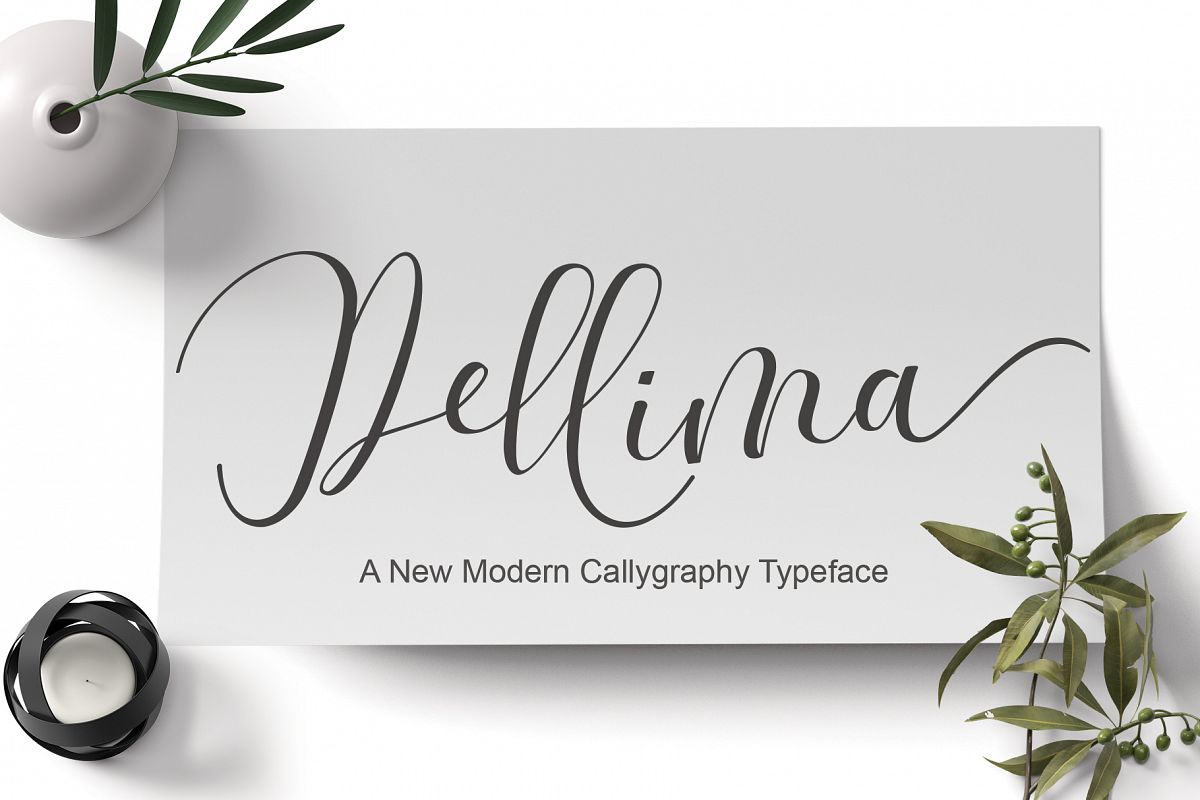
Dellima
Dellima a font work that is purely handwritten, has its own characteristics with the style of font script. this is perfect for invitations, signatures, blogs, social media, business cards, product brands.
Dellima has Stylistic standard, Stylistic Alternate, Stylistic Sets and ligatures. and includes uppercase and lowercase letters, numbers and punctuation marks.
The Features of this fonts is;
* Standart ligatures
* Stylistic Alternates
* Contextual Alternates
* Stylistic sets